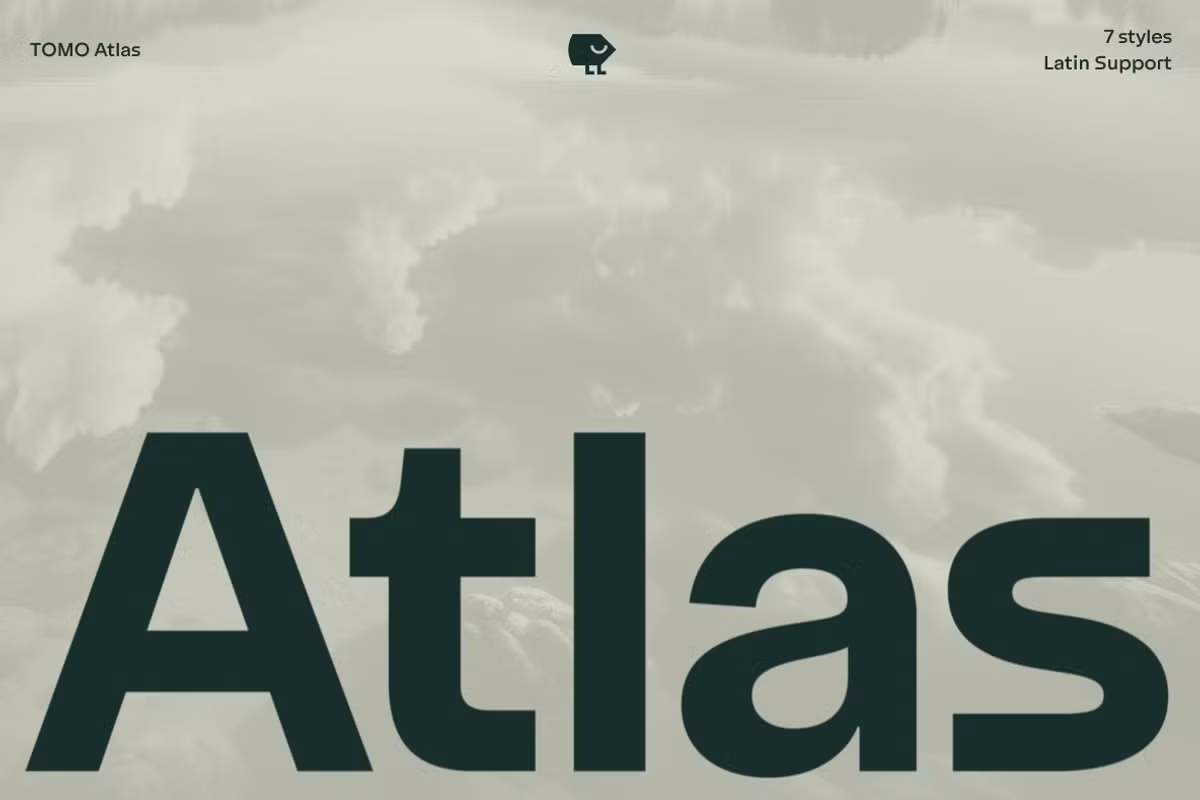
The Atlas Font Free Download is a bold and modern typeface that brings strength and clarity to your designs. With its clean lines and geometric letterforms, this font is perfect for creating striking logos, headlines, posters, and branding materials. The Atlas Font offers versatility, making it suitable for both creative and professional projects, while maintaining a strong presence and modern appeal. Whether you're working on digital content, print media, or advertising campaigns, this font will ensure your typography stands out. Please note, for commercial use, a license purchase is required. However, you can easily download the Atlas Font Free Download for free for personal use and experiment with its dynamic design. Download the Atlas Font Free Download today and enhance your projects with a contemporary, bold typeface that commands attention.